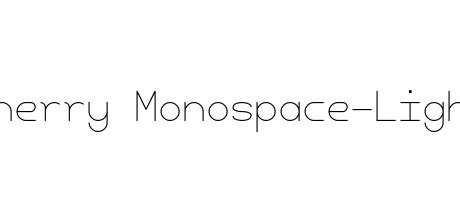
Cherry
Cherry Monospace-Light: A minimalist's dream, this font exudes clean, geometric lines. Each character is distinct yet unified, offering a sense of airy lightness within its monospace structure. The subtly rounded corners soften the starkness, creating a friendly yet sophisticated feel. Ideal for coding, typography displays, or projects demanding both clarity and elegance.